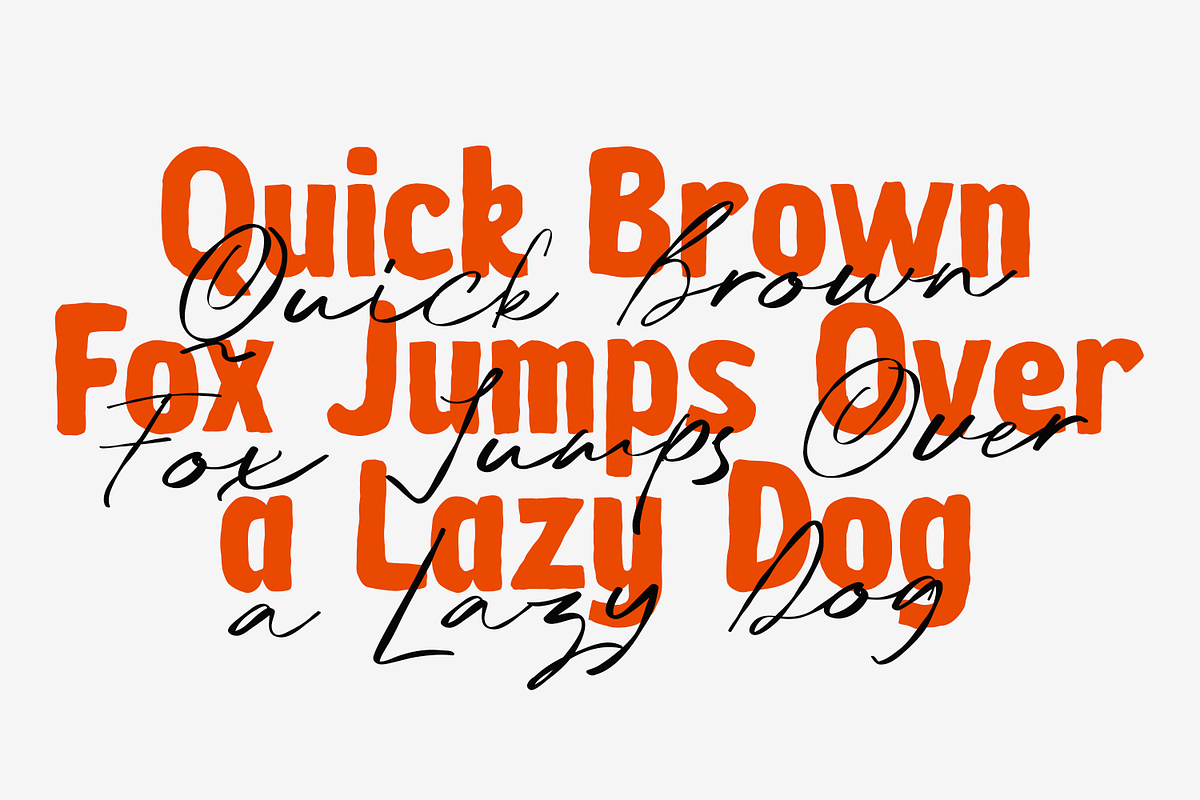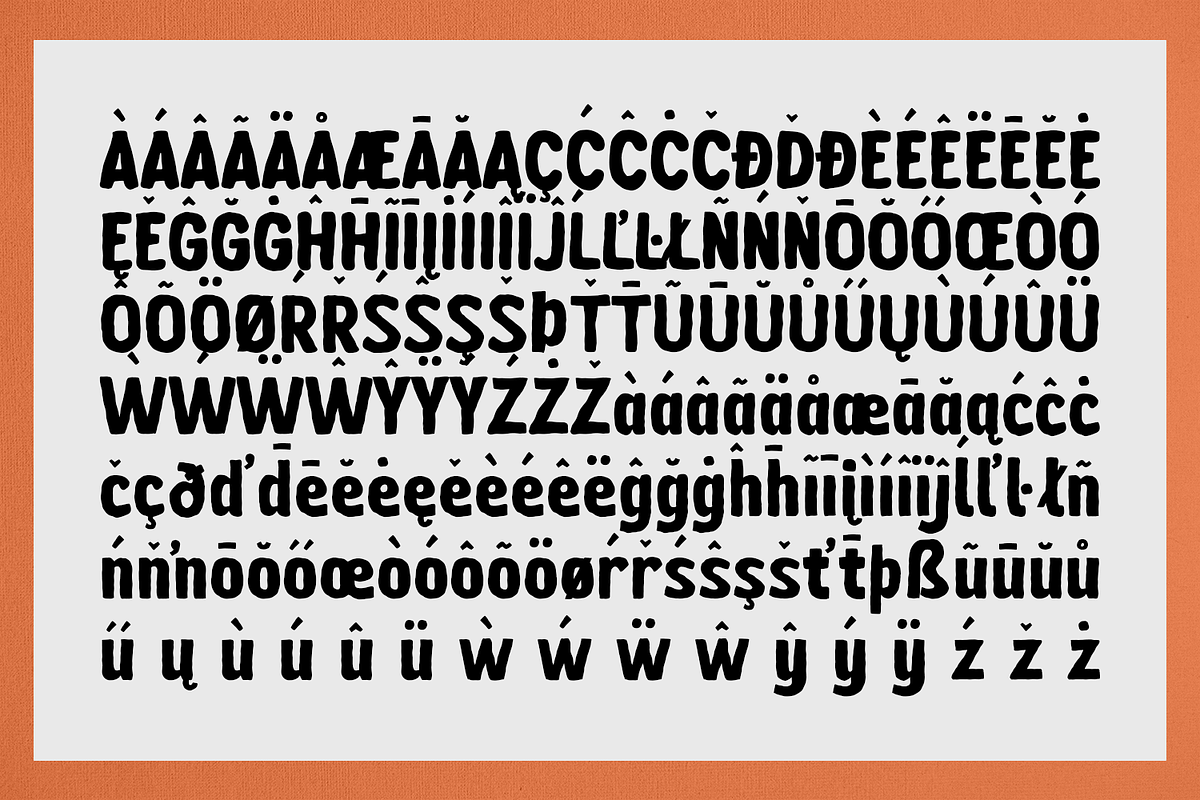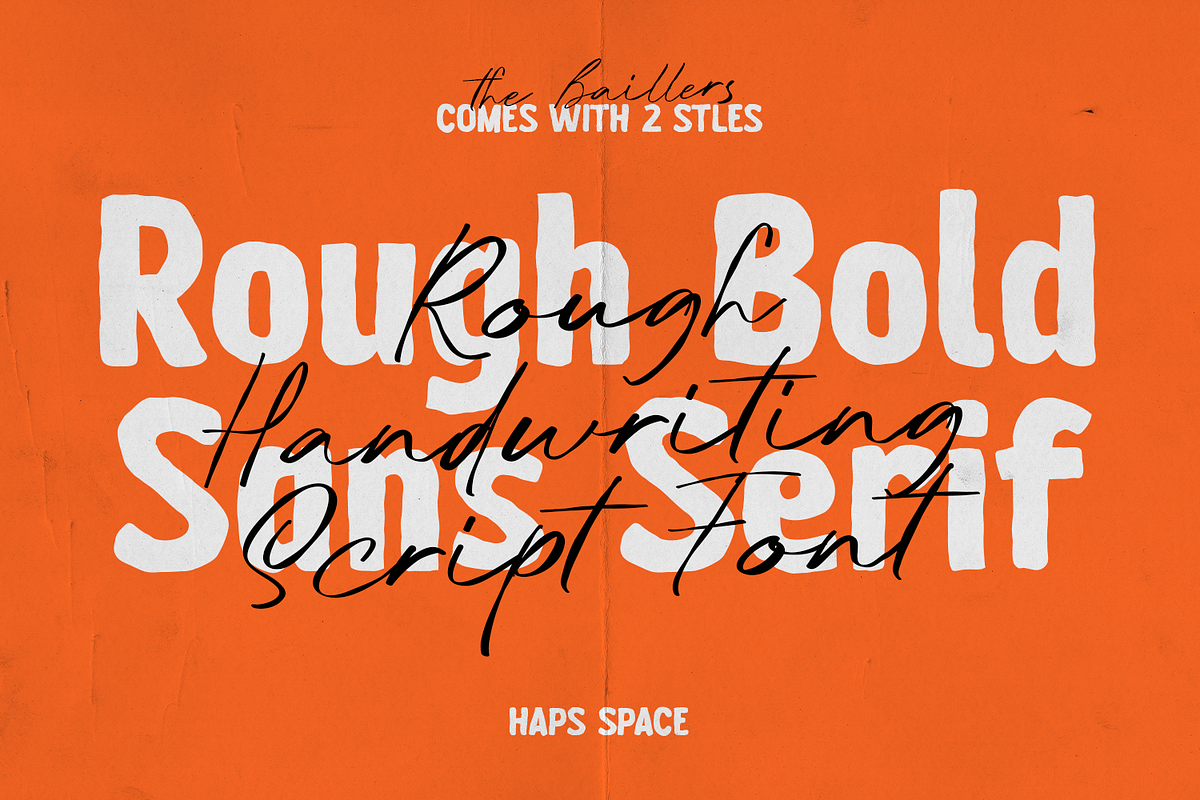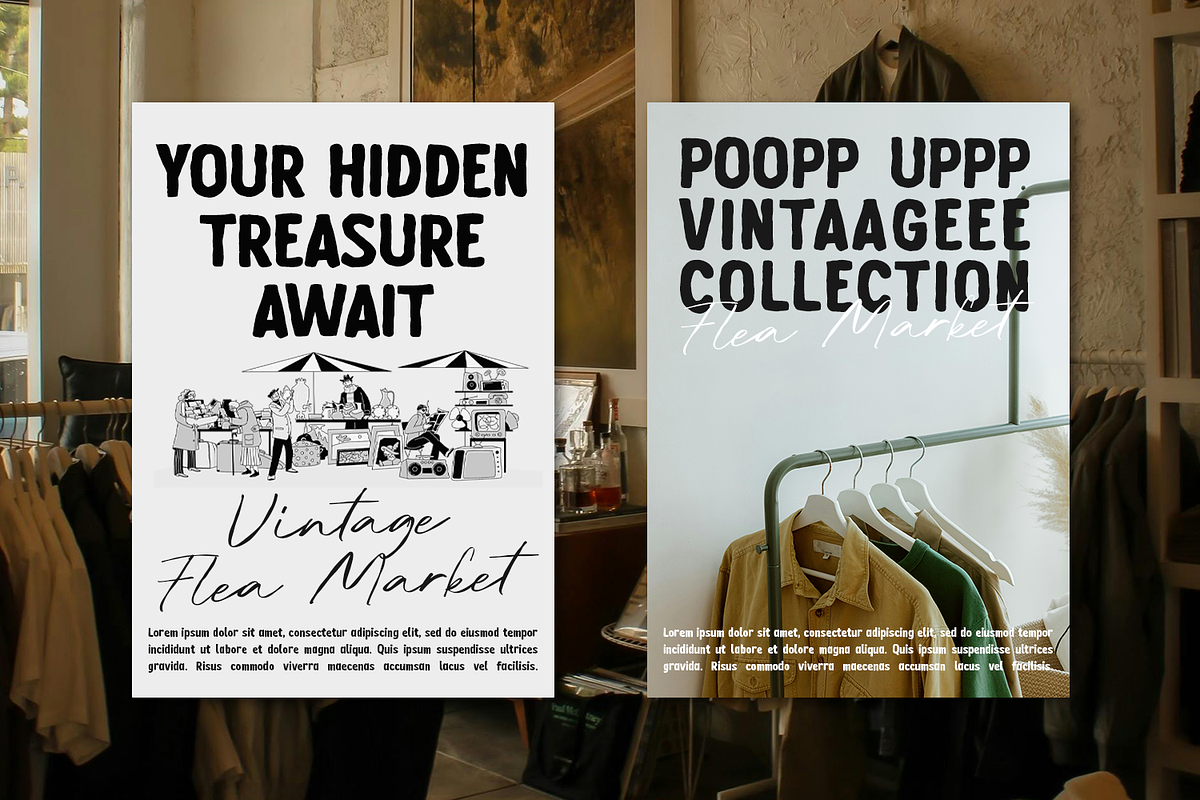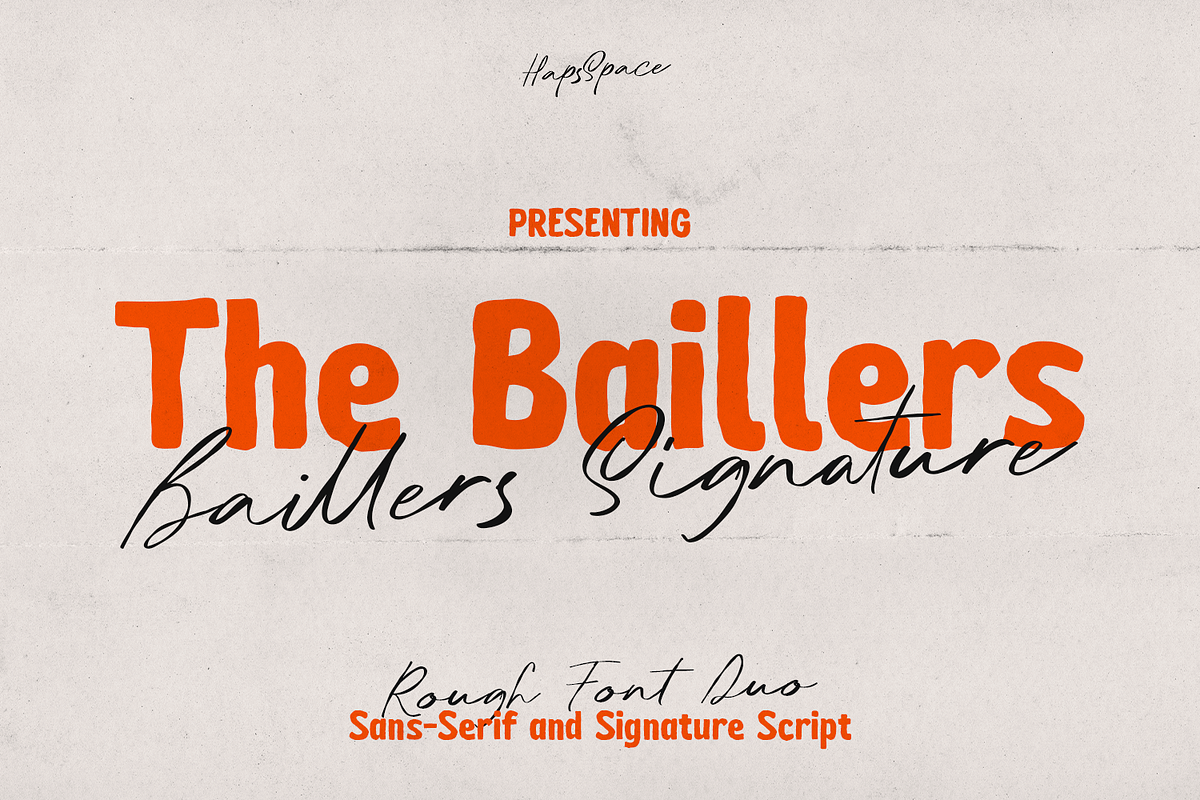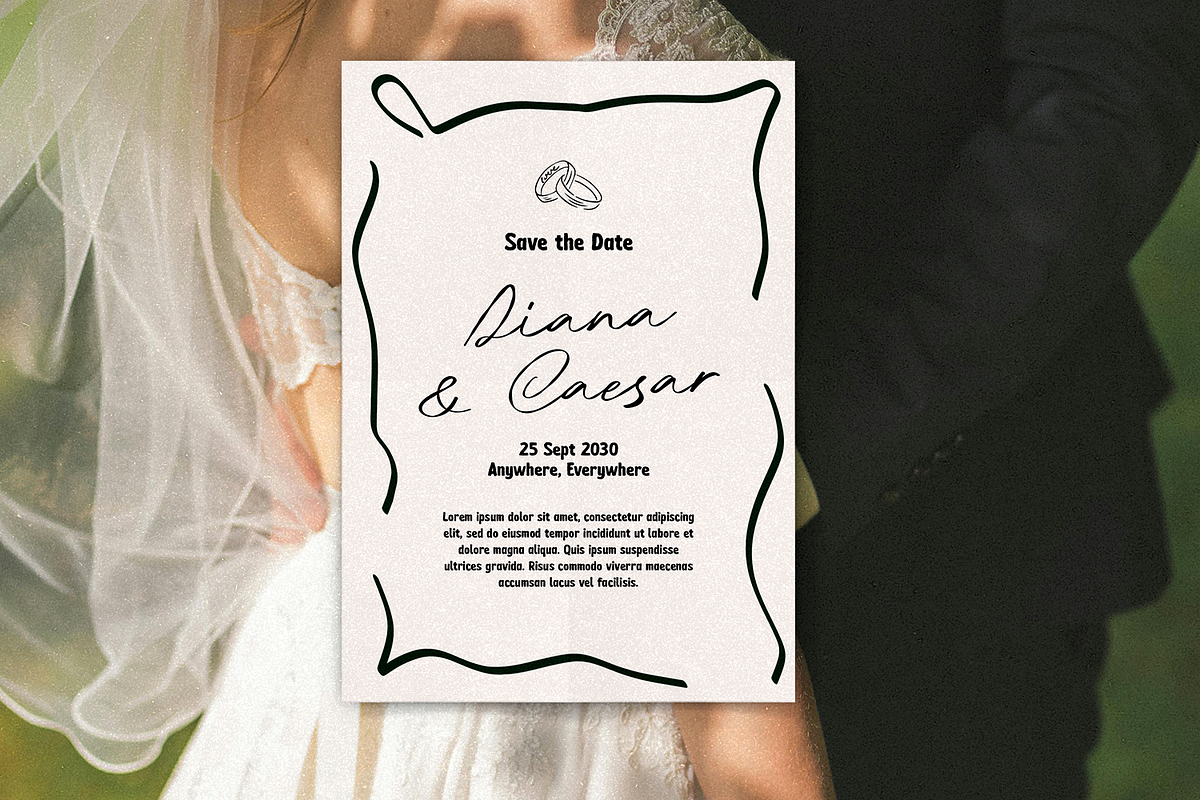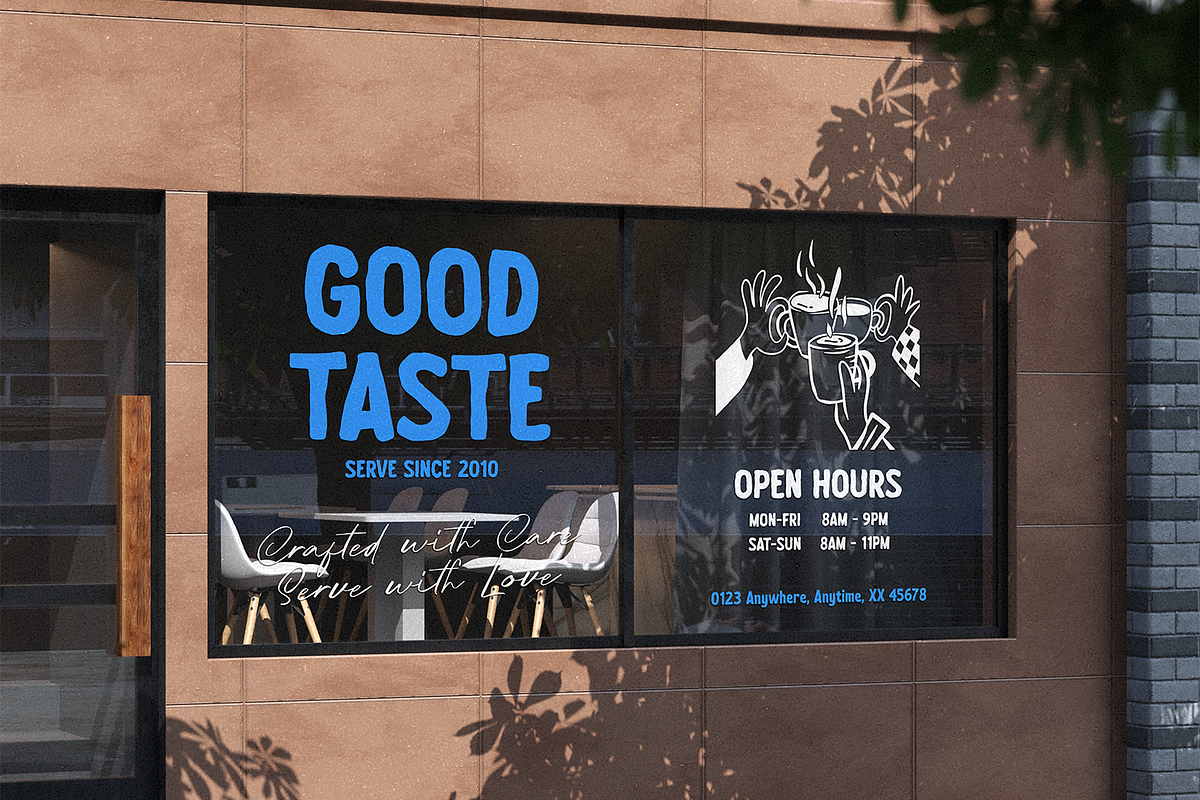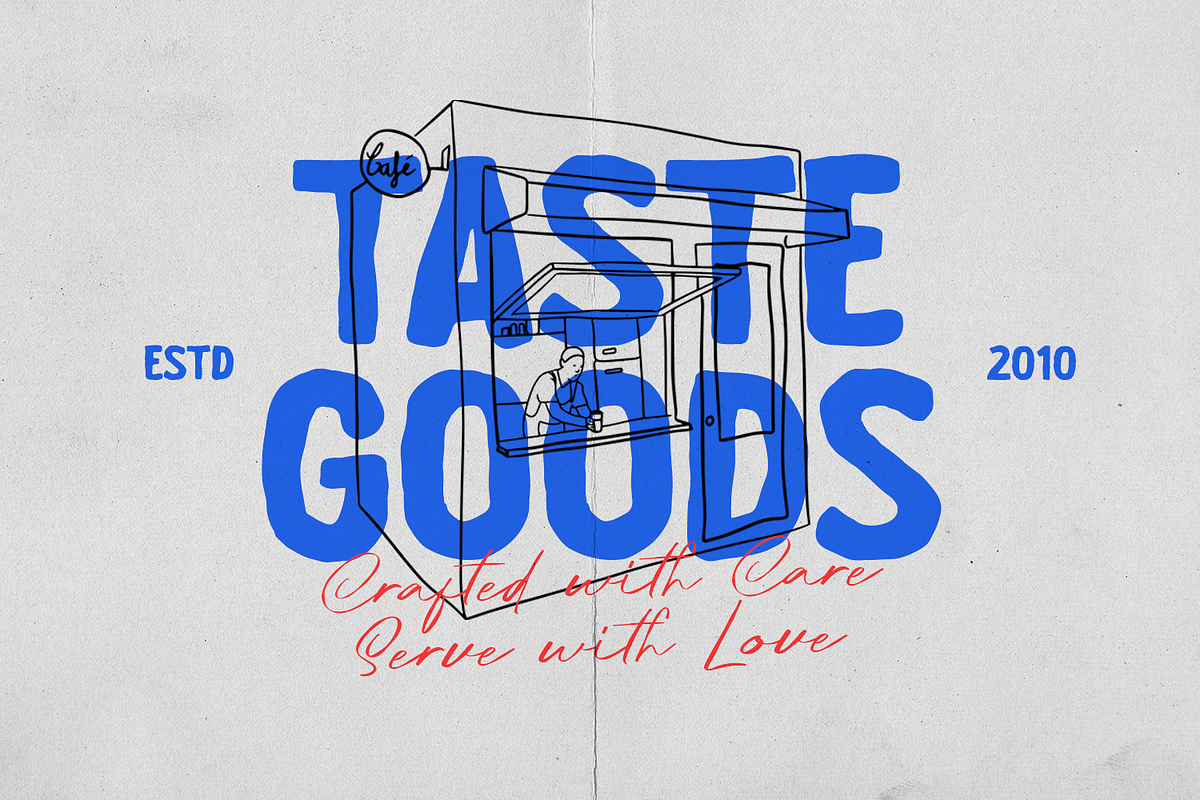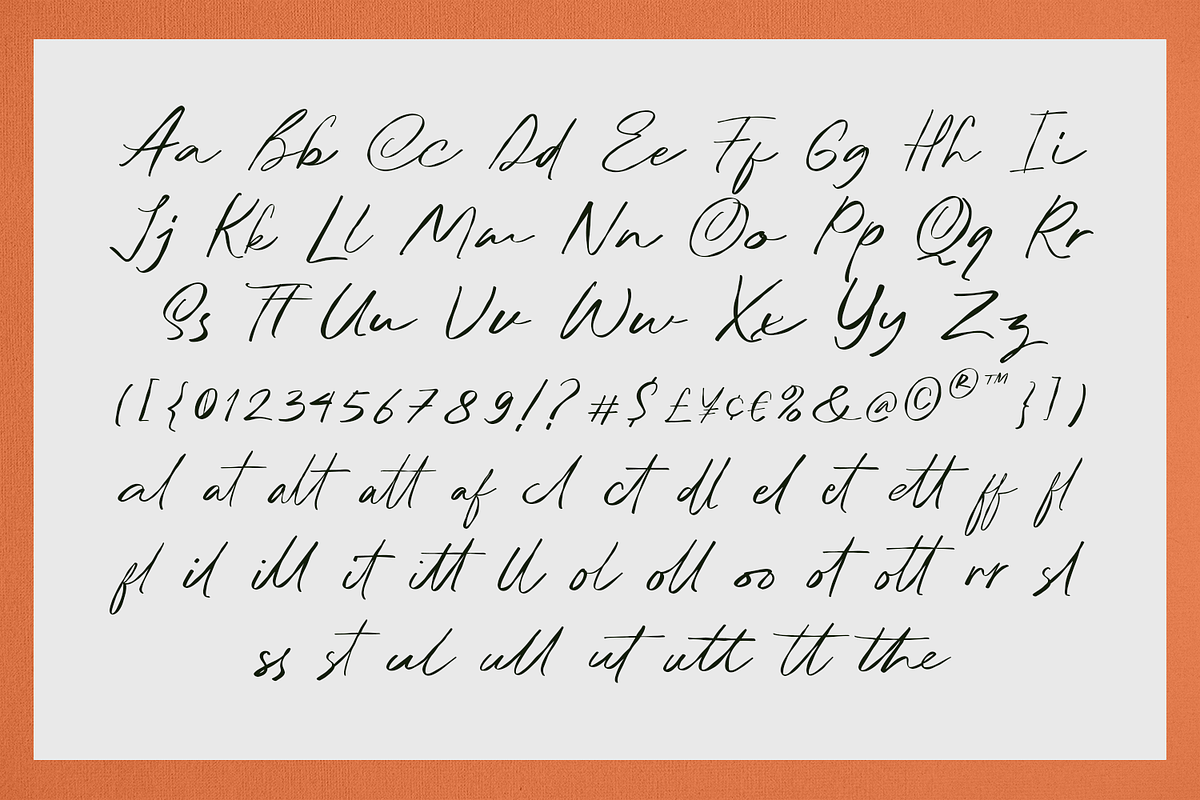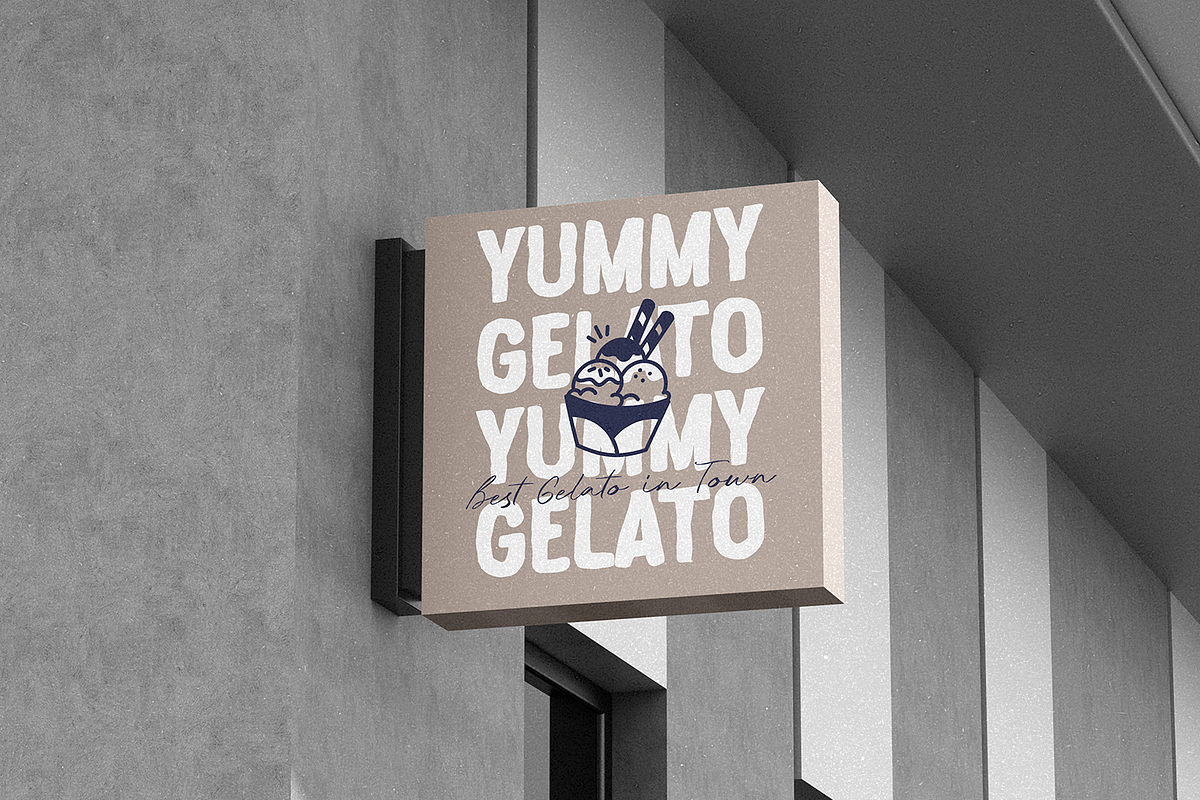
The Baillers Font Duo
The Baillers Font Duo is a versatile and dynamic Rough Font Duo designed to give your projects an authentic, handcrafted edge. This package expertly pairs a bold, impactful Rough Sans-Serif with an elegant, free-flowing Signature Script, offering designers the ultimate tool for visual contrast and creative expression.
The Sans-Serif is perfect for strong headlines and branding, while the accompanying Signature Script adds a personal, sophisticated touch. This pairing is ideal for merchandise, packaging, logotypes, social media, and more. Elevate your design with the compelling contrast and genuine texture of The Baillers Duo.